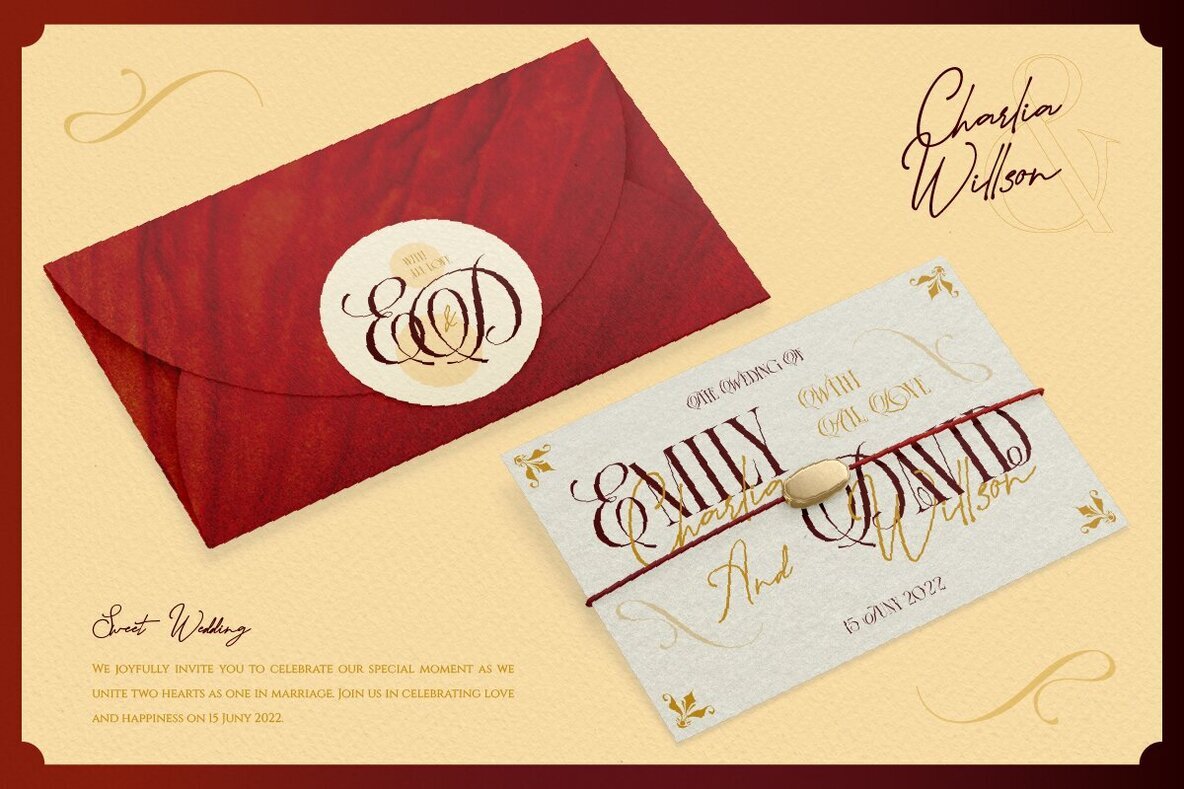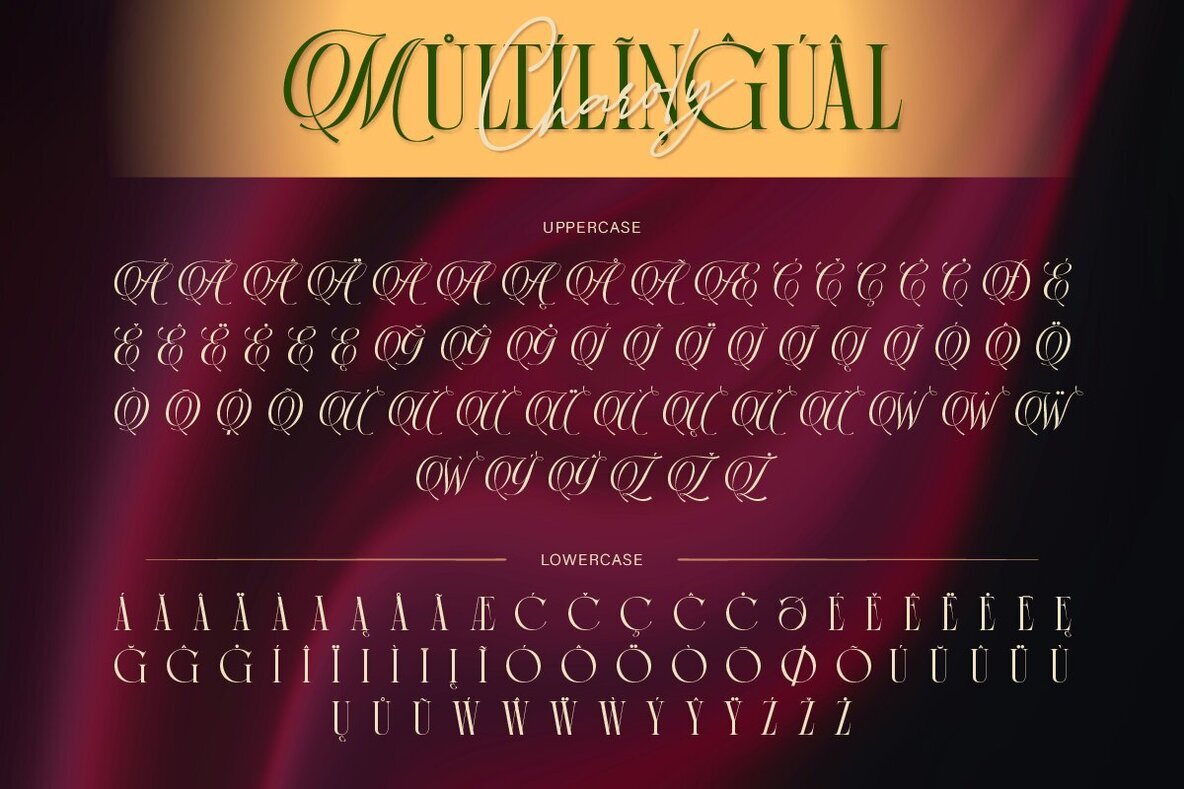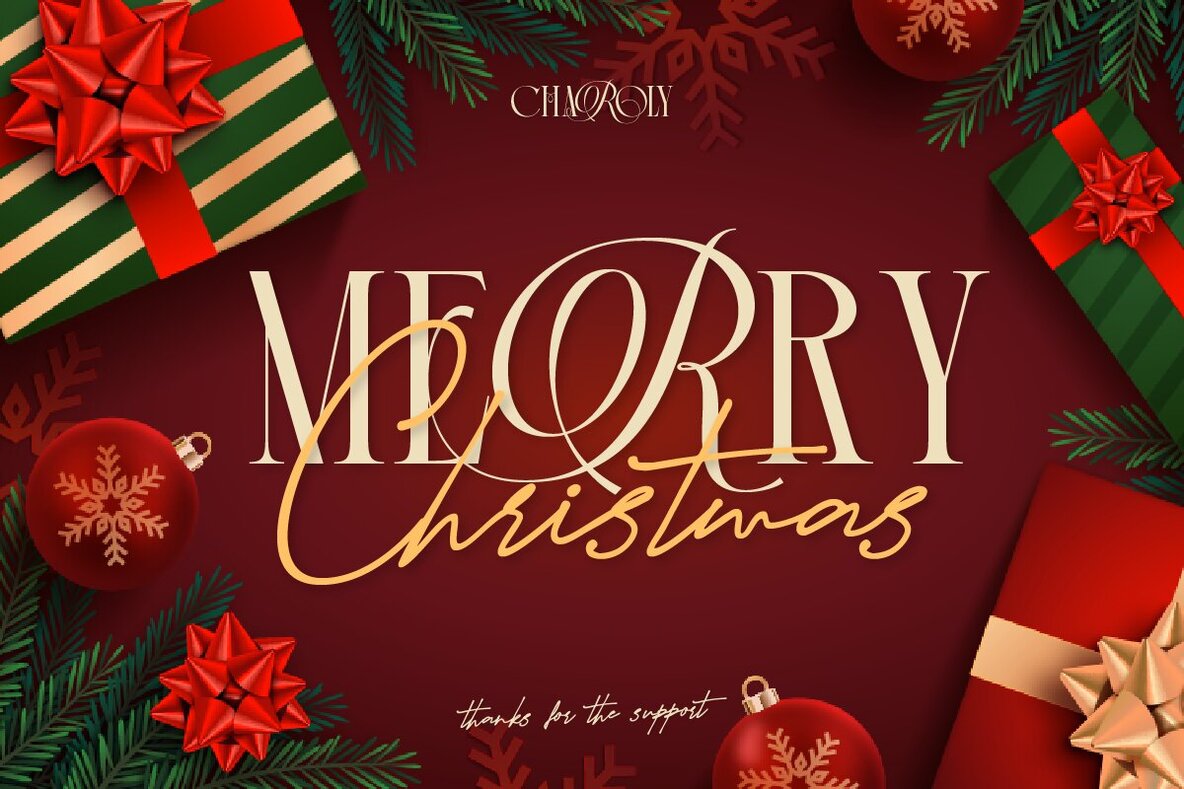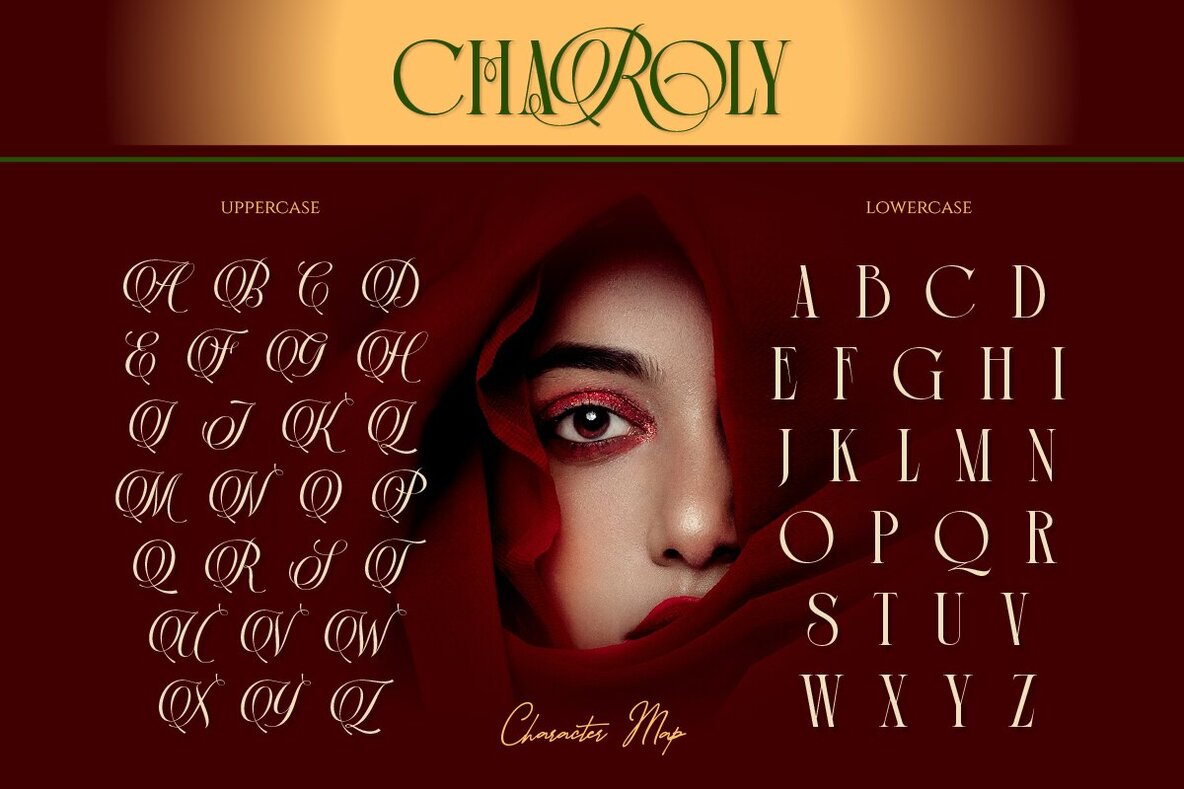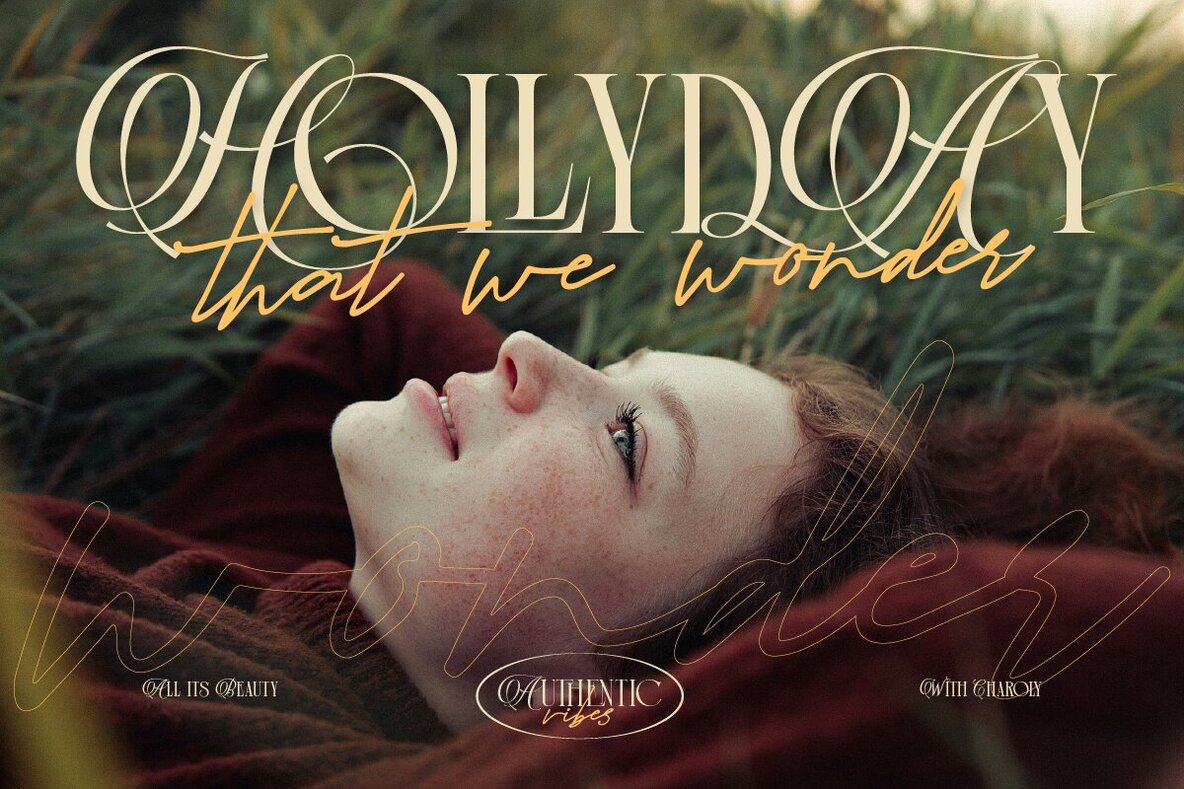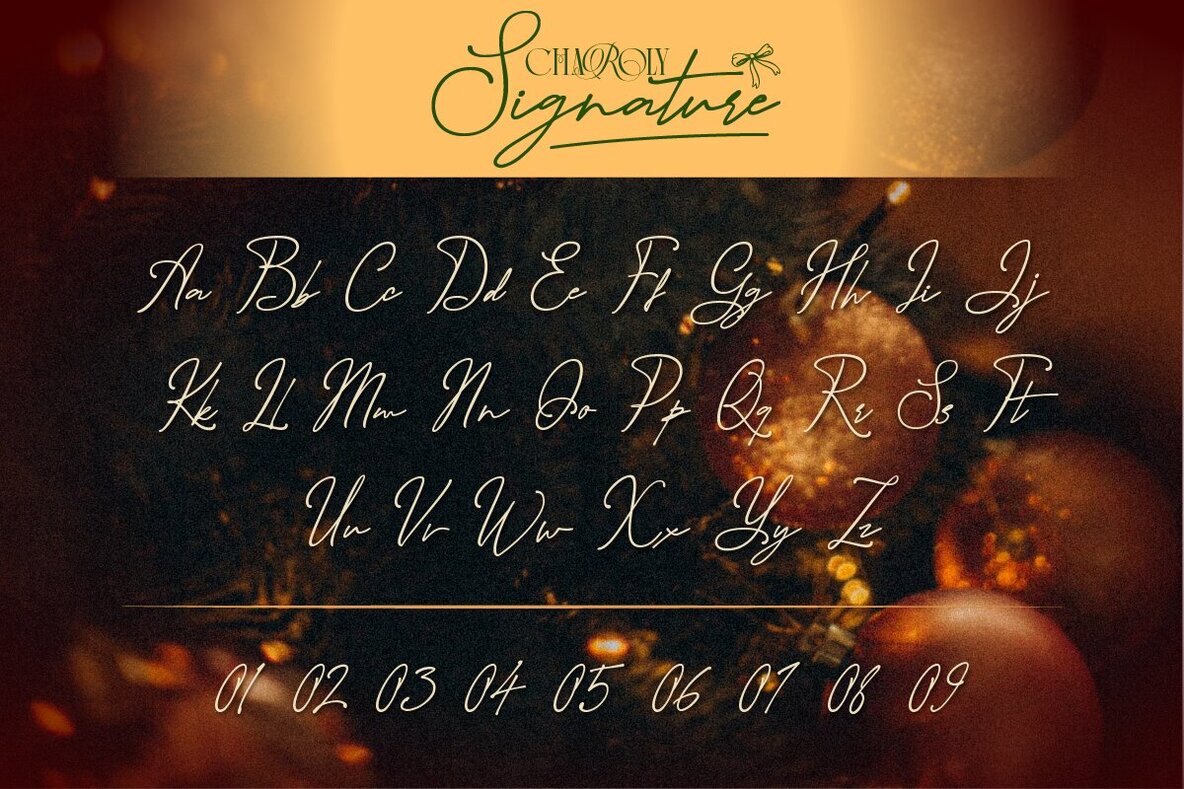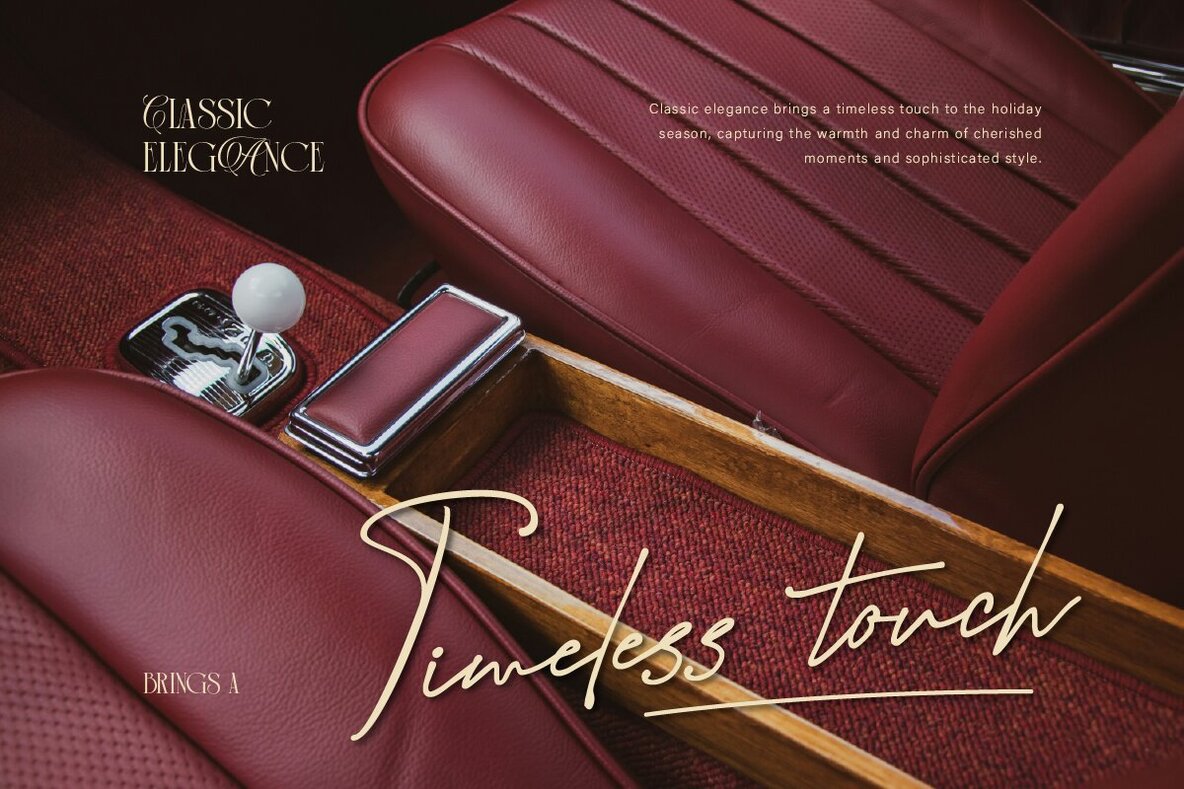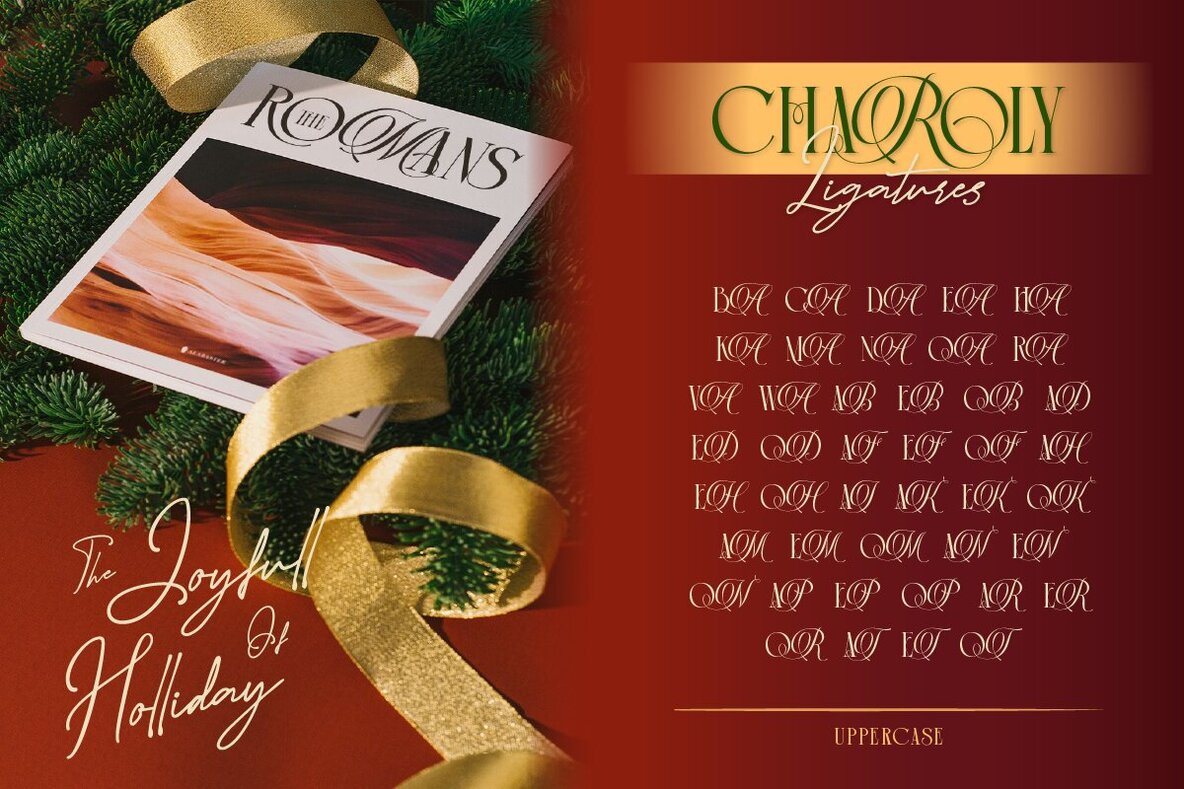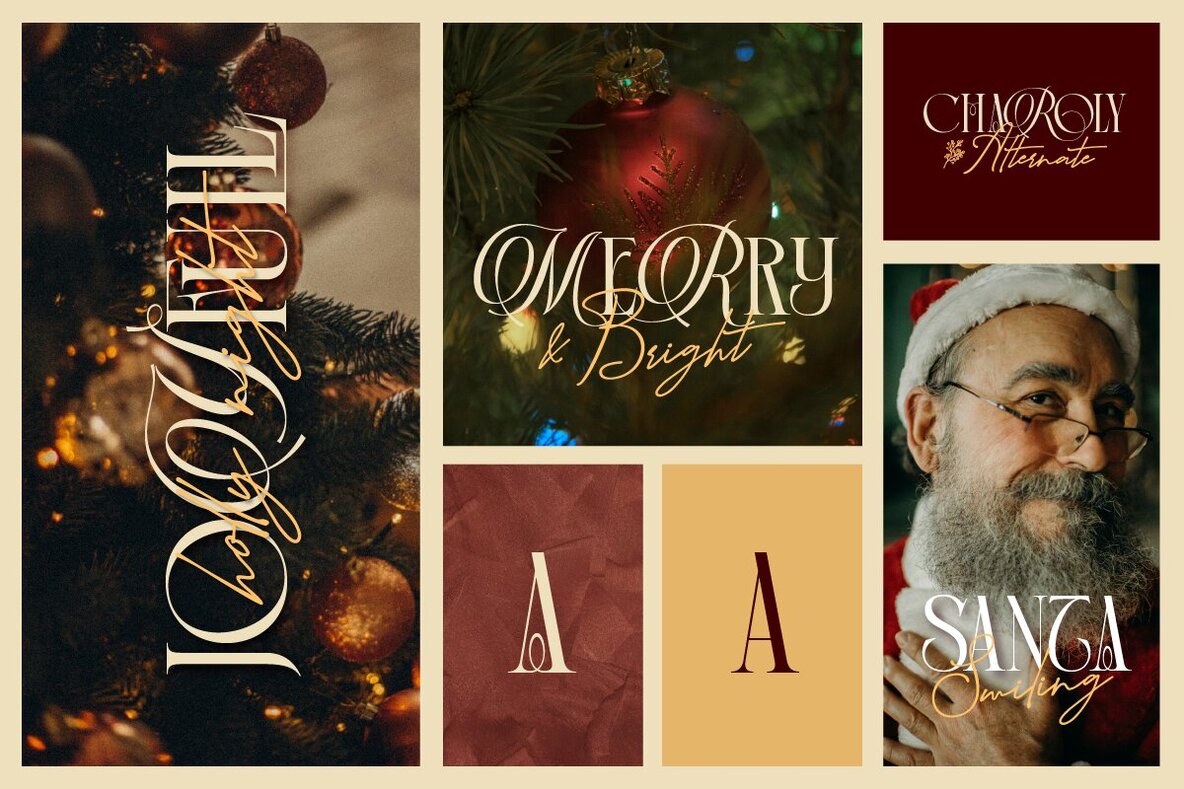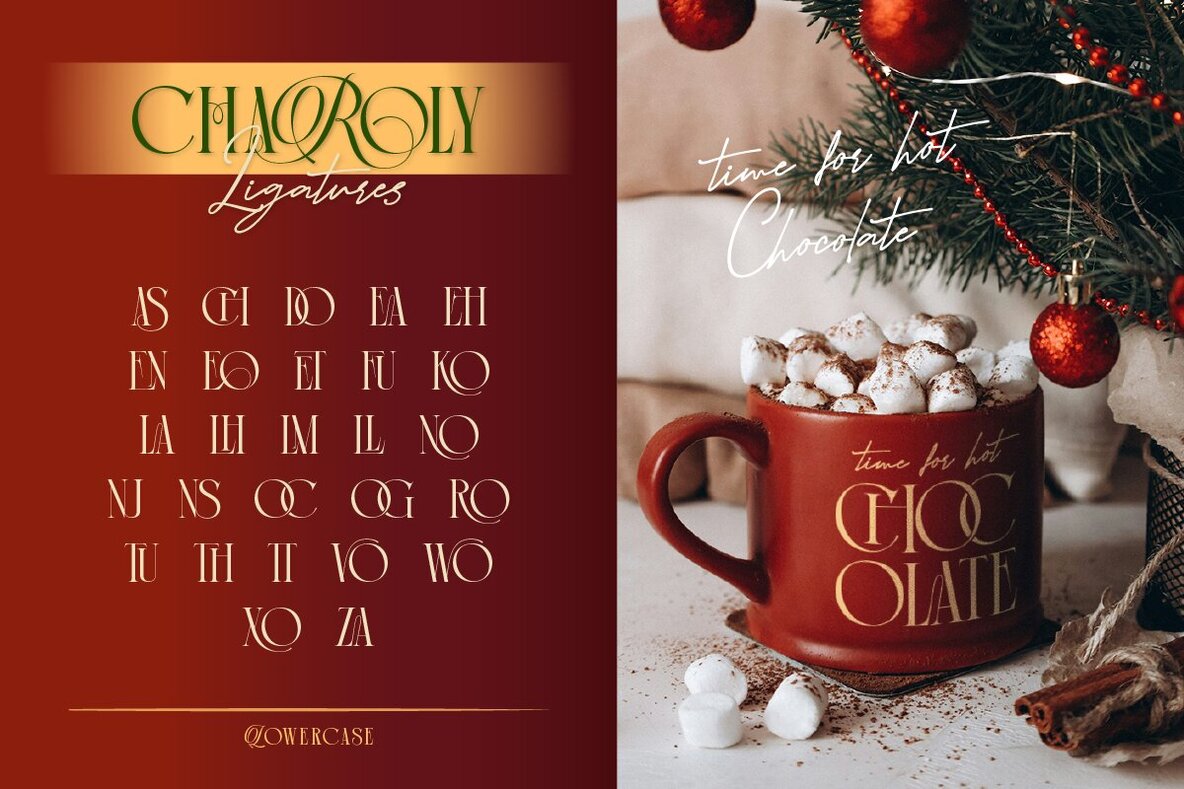
Charoly Signature Font
Charoly Signature is a captivating font duo that elegantly combines the timeless appeal of classic serif with the charm of script elements. This harmonious pairing offers a versatile solution that shines in both print and digital design projects. Whether crafting designs for Christmas, weddings, or any special occasion, Charoly Signature is ideal for invitations, greeting cards, branding, and more.
This font set includes a full A-Z range in both uppercase and lowercase, making it adaptable for various design needs. It features numbers, punctuation, ligatures, and alternates, allowing for creativity and flexibility in design. Additionally, Charoly Signature supports multiple languages, broadening its usability for diverse projects. Enhance your design toolkit with the Charoly Signature Characters Map, perfect for seamlessly integrating this duo font into your next project.